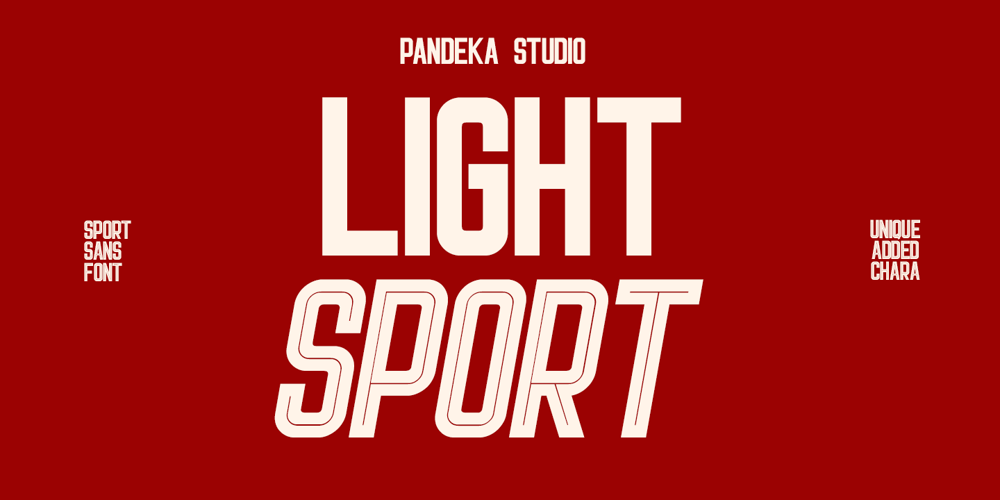
Light Sport Font Family was designed by Sagara Nararya and published by Pandeka Studio. Light Sport contains 4 styles and family package options. Introducing Light Sport – Sans sport with added unique characters. Ideal for logos, bold action graphics, and sporty designs, Light Sport is perfect for baseball themes, technology, and action-packed projects.Featuring 4 style (Regular, Outline, Italic, Italic Outline), this font adds dynamic flair to your headlines and titles. Light Sport’s unique characters and versatile design bring your ideas to life with modern energy.What’s you get? Light Sport Main FIles Regular, Outline, Italic, Italic Outline Uppercase & Lowecase Letters Numeral & Punctuation Unique letterforms Works on PC & Mac Multilingual Support Currencies Simple Installations Instructions (Access special characters in all apps, even in Cricut Design) Accessible in the Adobe Illustrator, Adobe Photoshop, Microsoft Word even work on Canva PUA Encoded Characters Fully accessible without additional design software Uppercase Feel free to follow, like and share. Thanks so much for checking out my shop!Have a great day!Pandeka Studio